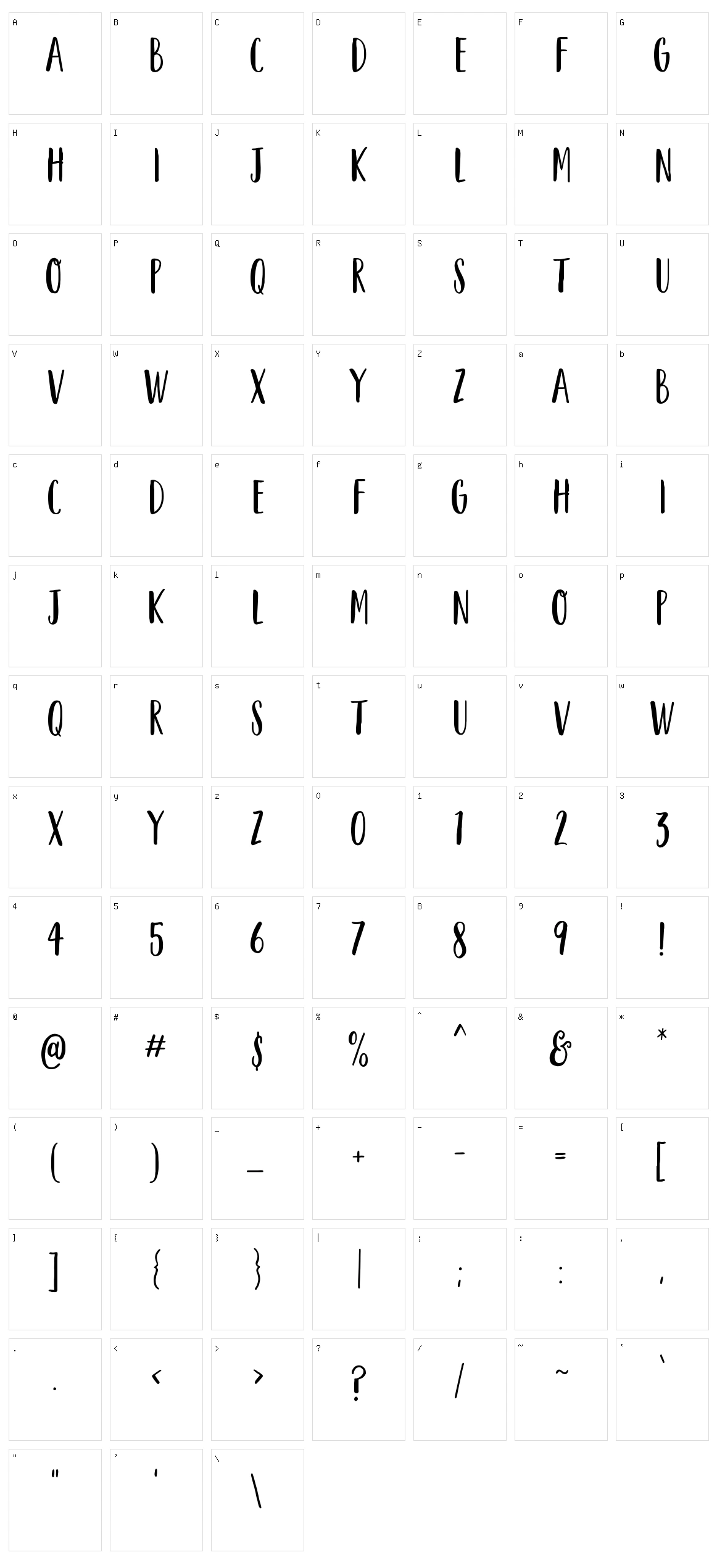
The free font Garden Grown US C Caps is carefully designed by Garden Grown Fonts, showcasing a thoughtful balance of creativity and usability and falls under the Script font style. When you download the ZIP file, it contains only 33.29 KB of font files, making it lightweight and quick to download. Please review the license details below to understand permitted usage and distribution rights. If license information is not available, we recommend using this font for personal projects only or contacting the author directly for commercial usage permissions.